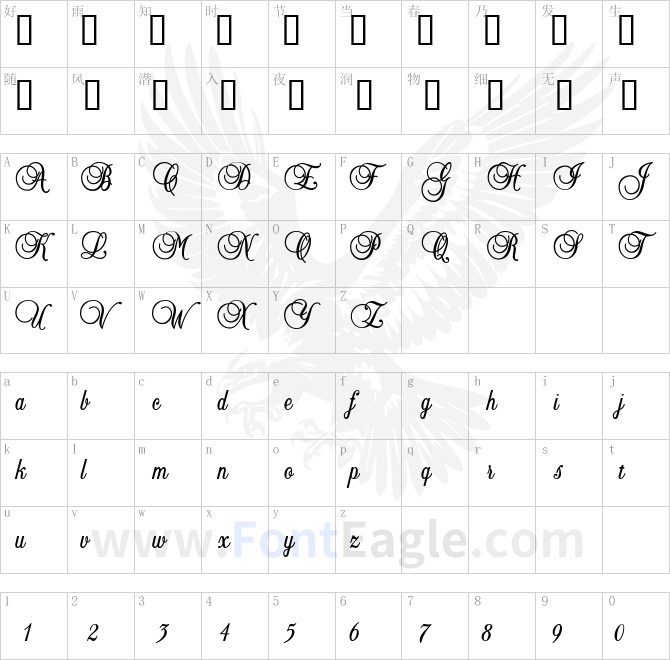
Margarita is a great font, widely used in graphic design, single-page menu design, poster design and other fields, and is deeply loved by designers.Margarita download.